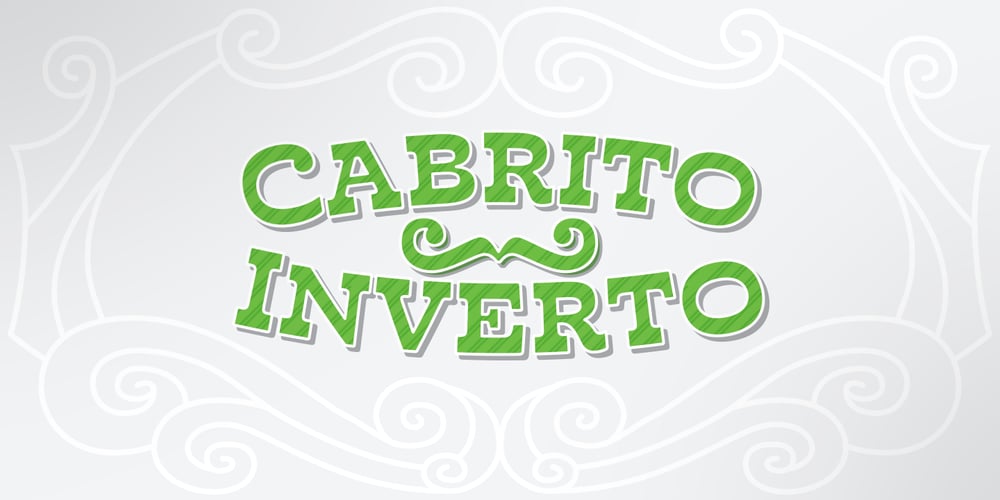
Cabrito Inverto Font Family was designed by Jeremy Dooley and published by insigne. Cabrito Inverto contains 48 styles and family package options. Life’s always more fun when you reverse the stress. The same goes for the new member of the Cabrito family. Cabrito itself is a recently developed slab serif made for the kid’s book The Clothes Letters Wear. Cabrito proved to be more popular than I thought, and I promised I would create an inverted style for this new addition to the font world–a variant that would pair well with the original or even stand well on its own. And so now, here it is. Cabrito Inverto, which features the reversed stress of the strokes from a font’s “normal” traits. Inverted stress fonts are most often associated with cowboys and the Old West. The inverted stress gives it a happy-go-lucky appearance, not to be taken too seriously. It’s a pleasantly rounded, not-so-strictly geometric typeface with handwriting-inspired forms. Whew, that’s a mouthful! Inverto’s bundle of alternates is accessible in any OpenType-enabled program. It contains a workforce of alternates, swashes, and alternate titling caps to embellish the font. Also bundled are swash alternates, aged design and style figures, and compact caps. Peruse the PDF brochure to examine out these solutions in action. OpenType-enabled purposes such as Adobe suite or Quark will allow ligatures and alternates. This font family also includes the glyphs for 72 different languages. Cabrito Inverto does pair well with Cabrito. There is even an extra font weight, Black, for when you want to punch it up a bit. Jeremy Dooley designed Inverto to be a welcoming, day-to-day font family. Use it to express friendliness on just about anything, from candy to food to children’s toys. Cabrito Inverto’s one-of-a-kind visual appearance brings a bundle of fun to the party. Buy Cabrito Inverto to give a boost to your designs every day of the week.